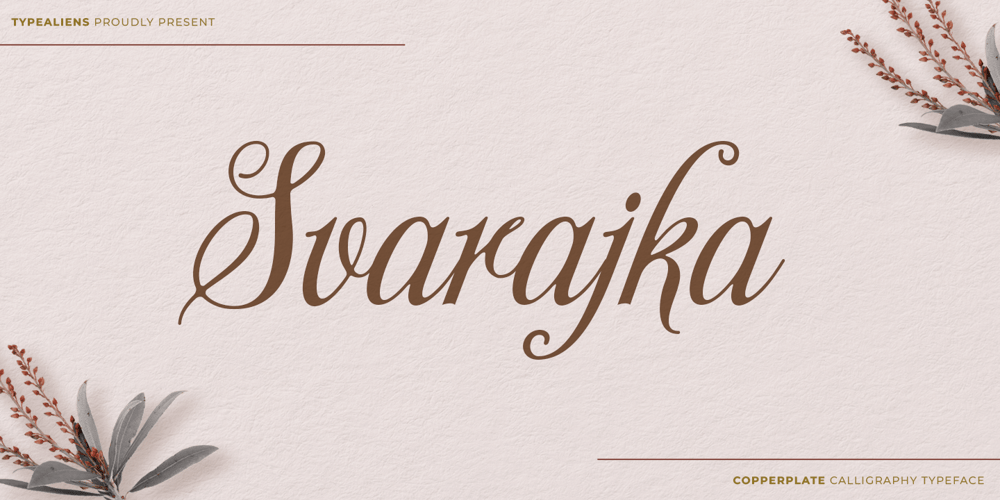
Svarajka Font Family was designed by Ilham Wahyu and published by Ilhamtaro. Svarajka contains 1 styles and family package options. SVARAJKA is a classic script font inspired by the old copper plate font with a slight oversimplification of the case so it’s less decorative. In addition to being classic, this font is also elegant, so it does not rule out the possibility for a simple and elegant modern design, and it will also be very beautiful for writing letters or as a font for weddings such as invitations or names of the bride and groom.To enable the OpenType Stylistic alternates, you need a program that supports OpenType features such as Adobe Illustrator CS, Adobe Indesign & CorelDraw X6-X7. Guides to access all alternates glyphs : http://adobe.ly/1m1fn4YCheers!